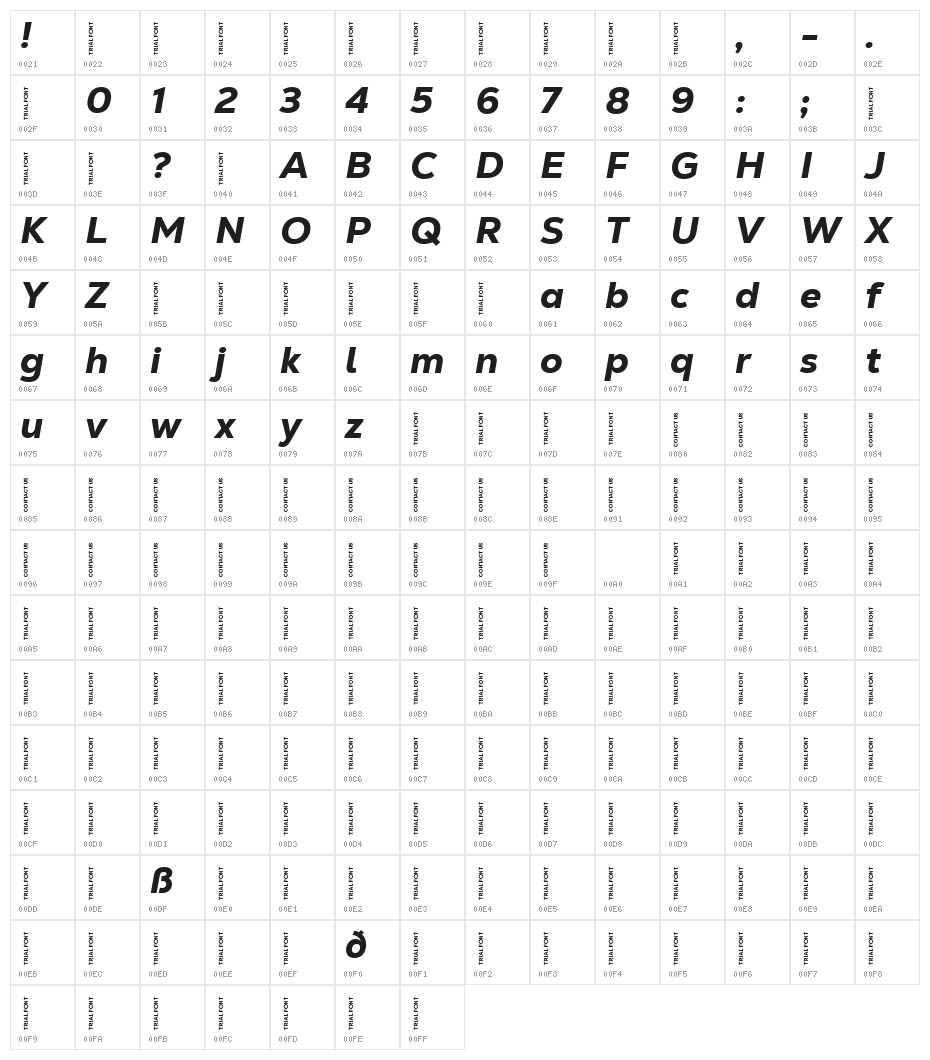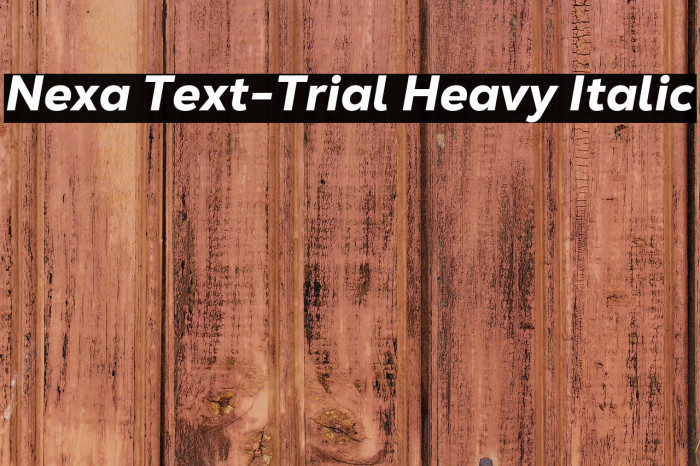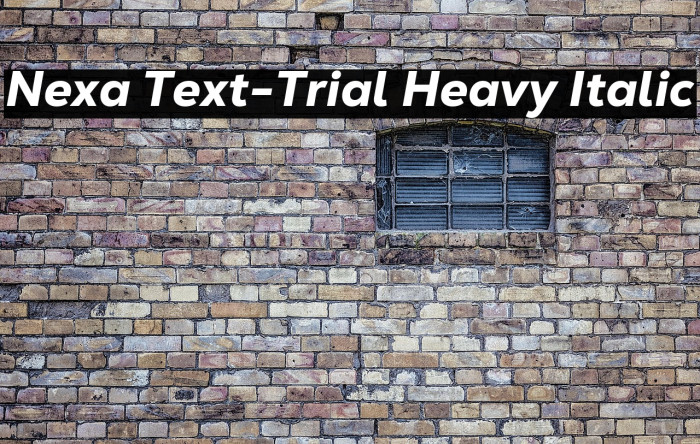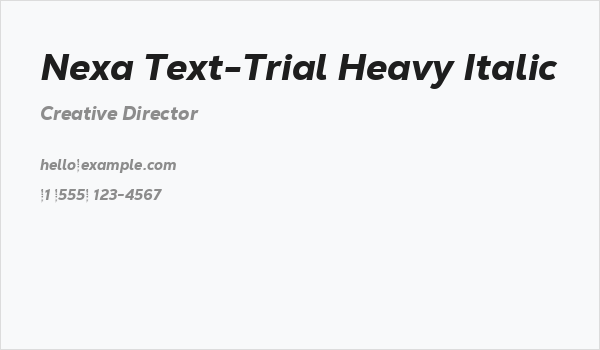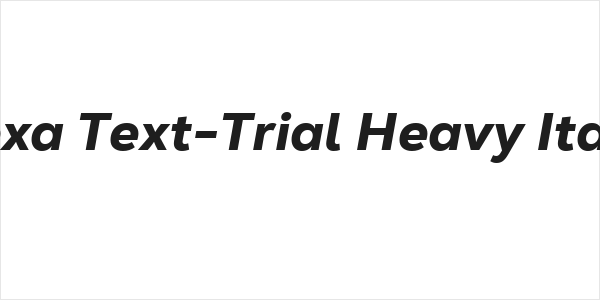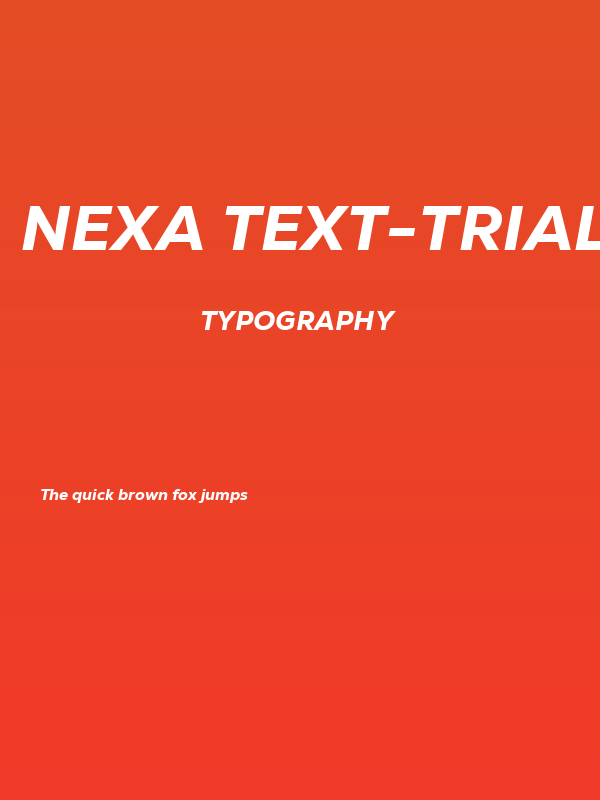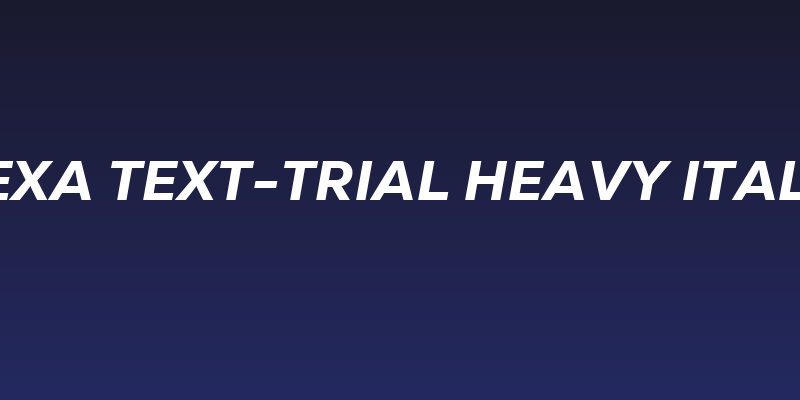
Nexa Text-Trial Heavy Italic Font
Nexa Text-Trial Heavy Italic Description
This font features a bold and dynamic style with a strong emphasis on modernity. The characters are italicized, giving them a forward-leaning posture that conveys movement and energy. The strokes are thick and consistent, providing a sense of stability and confidence. The uppercase and lowercase letters maintain a uniform width, which contributes to a clean and cohesive appearance. The numerals are clear and easy to read, matching the overall boldness of the alphabetic characters. Special characters are designed with the same attention to detail, ensuring they integrate seamlessly with the rest of the font.
| Proposed Projects | Ideal for branding, advertising, and headlines where a strong, modern impression is needed. |